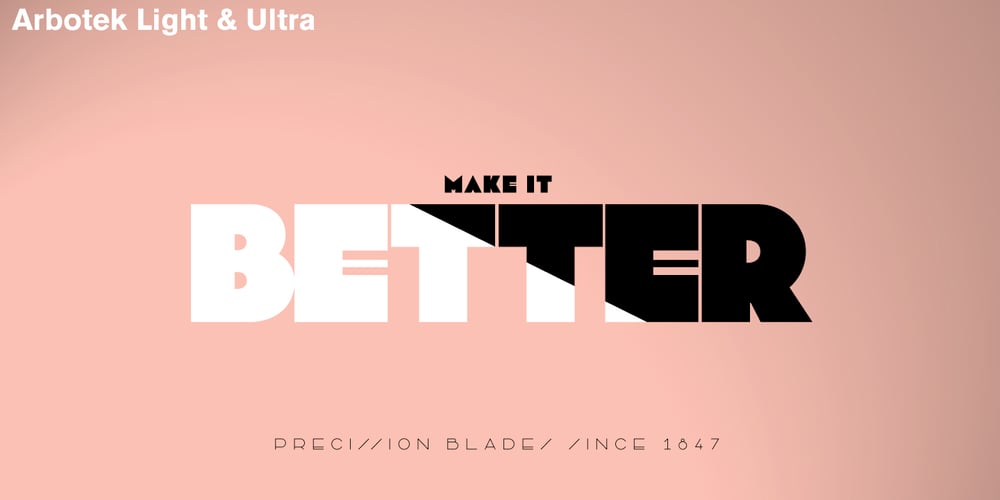
Arbotek Font Family was designed by José Manuel Urós and published by Type-Ø-Tones. Arbotek contains 4 styles and family package options. Arbotek has the original skeleton that the author used for the development of his typeface Arboria, a real ‘architect typography’, with a basic and radical approach to pure geometric forms. The three basic styles – Thin, Light and Light Rounded – try to approach the cartographic technique annotations and their output on plotters. The voluptuous style, Ultra, keeps the same structure of the Light versions, but develops as a historic Art Decó variant of this 20s and 30s graphic style.